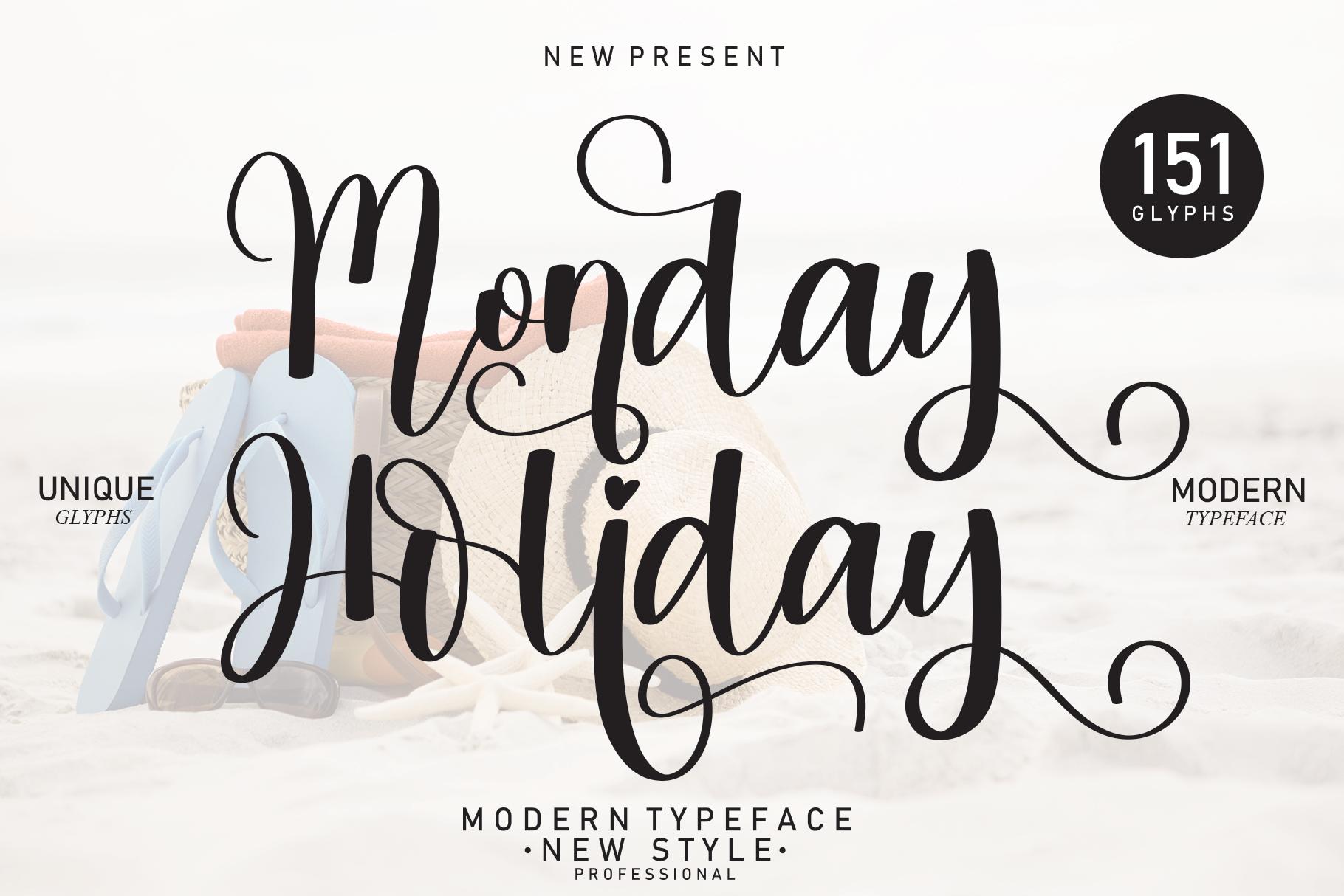
Monday Holiday Font Description
Monday Holiday is a lovely and delicate script font that exudes elegance and class. This font was particularly crafted for those who need a beautiful and refreshing look to their designs. Monday Holiday is PUA encoded which means you can access all of the glyphs and swashes with ease!